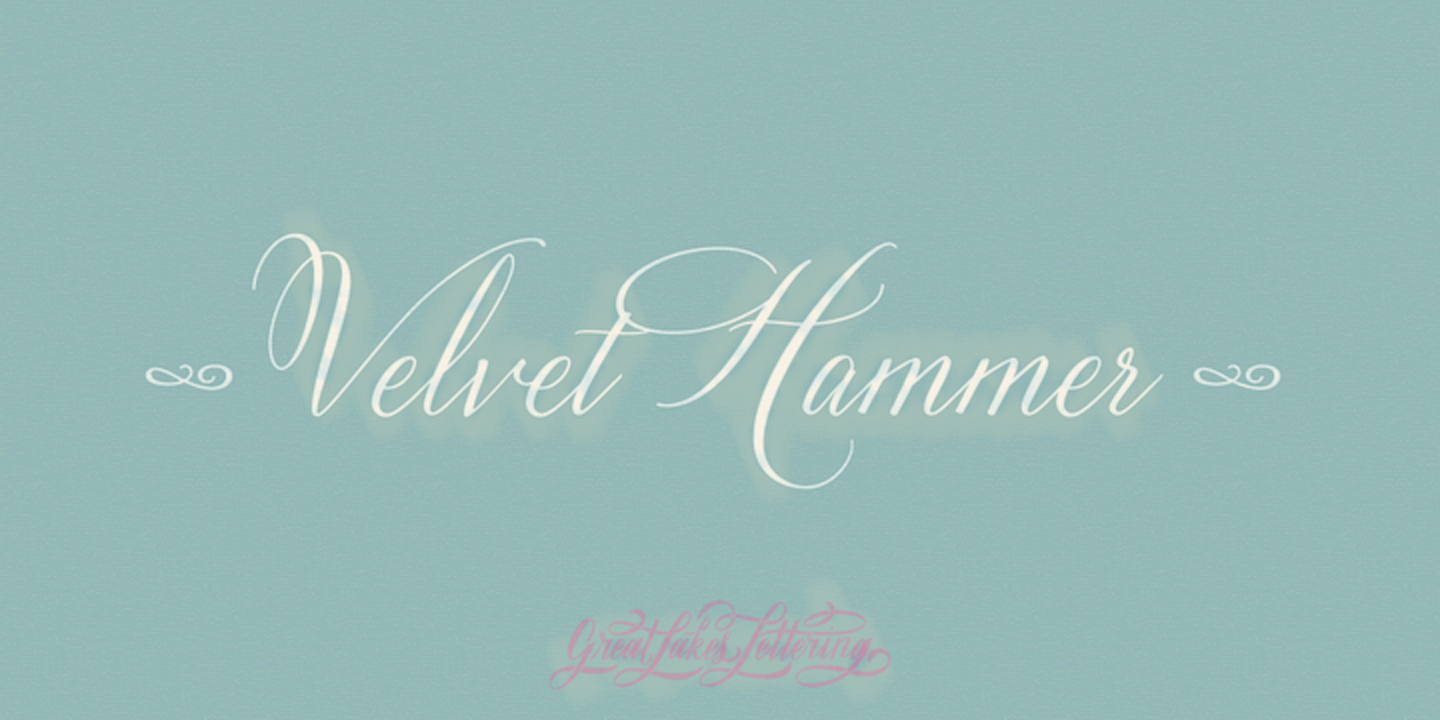
The Velvet Hammer Font is ideal for luxurious power design projects including high-end nightclub branding, luxury fashion campaigns, premium liquor advertisements, exclusive event invitations, sophisticated rock band logos, upscale bar identities, elite entertainment venues, and powerful lifestyle brand marketing. This commanding typeface brings sophisticated strength and luxurious authority to any design project requiring elegant power typography with premium rebel appeal and refined intensity.
What makes Velvet Hammer Font so exciting is its perfect fusion of luxurious elegance with commanding power that creates an immediate sense of sophisticated rebellion and premium authority. The letters feature smooth, velvet-like sophistication combined with hammer-strong impact that communicates both luxury and unstoppable force. This distinctive powerful elegance makes it perfect for brands and projects that want to communicate premium strength, sophisticated rebellion, and the irresistible appeal of luxurious power and elite entertainment excellence.
The Velvet Hammer Font family typically includes regular and bold weights, often with luxurious variations and power-inspired decorative elements. Many versions feature premium symbols, elite glyphs, and sophisticated design elements that enhance its authenticity for luxury entertainment and high-end lifestyle applications.
Whether you're designing for luxury entertainment venues, premium lifestyle brands, or exclusive events, Velvet Hammer Font Free Download provides the perfect solution for projects that need to convey sophisticated power and luxurious authority. This font transforms standard text into commanding designs that immediately communicate premium strength, elite sophistication, and the compelling appeal of luxurious rebellion to audiences seeking exclusive experiences and high-end entertainment excellence.